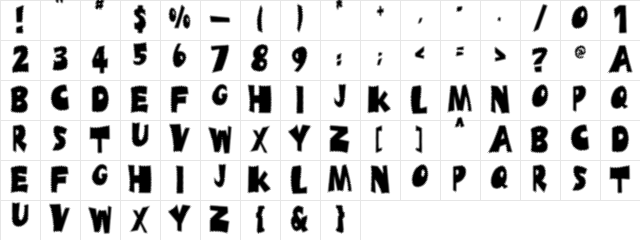
Ufrayd Regular
Design Context for Ufrayd
Ufrayd is a composed and adaptable typeface that performs quietly and consistently across a wide range of design contexts.